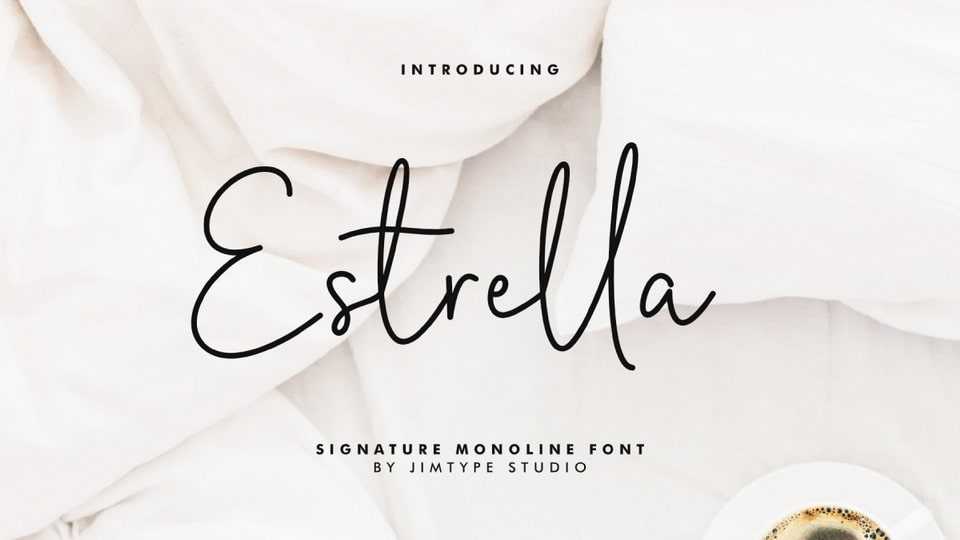
Download Estrella font, a minimalist and stylish signature typeface perfect for adding elegance to your projects. Ideal for branding, labels, photography.